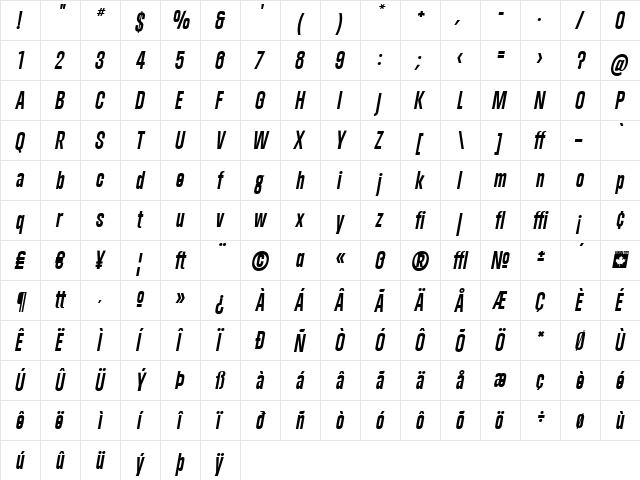
Trump Gothic East Bold Italic Font Preview
Design Context for Trump Gothic East Typeface
Trump Gothic East takes a clean, functional approach — its unadorned letterforms prioritise legibility and work reliably across screen and print environments. The slanted form adds forward momentum and visual energy. Its bold stroke weight gives it real presence on the page.
A strong choice for UI design, app interfaces, bold signage, and corporate brand systems.
Font Pairing: Use Trump Gothic East for headlines alongside a lighter-weight sans or serif for body copy to establish clear visual hierarchy.
Pro Tip: Pair Trump Gothic East with a display or serif font for headlines — its neutral character makes it an excellent supporting player in complex typographic systems.